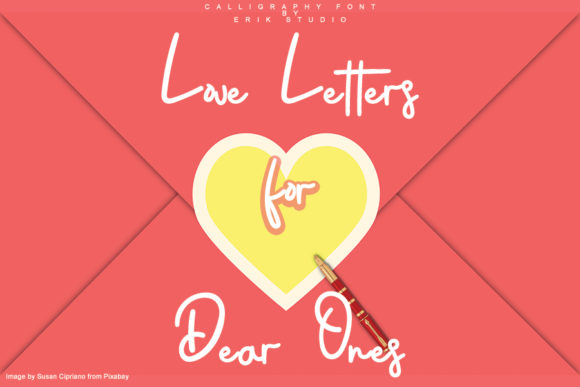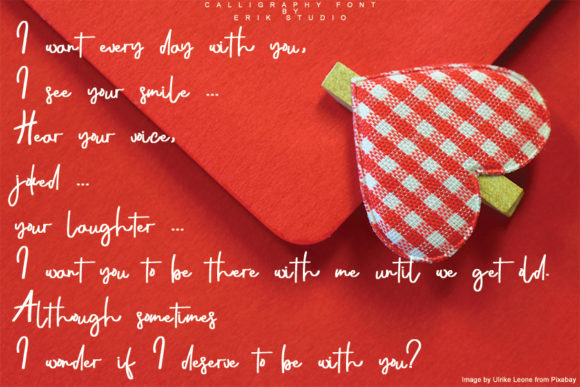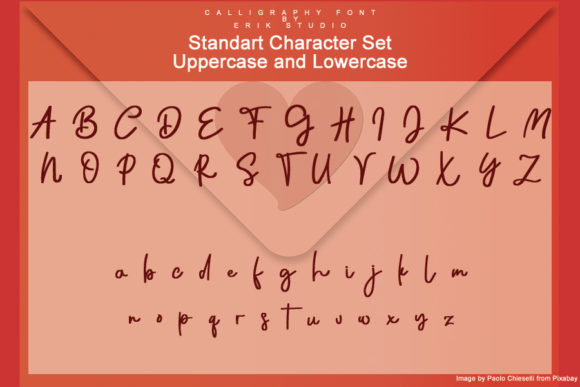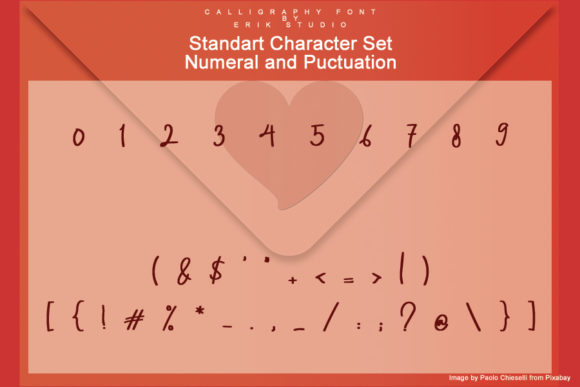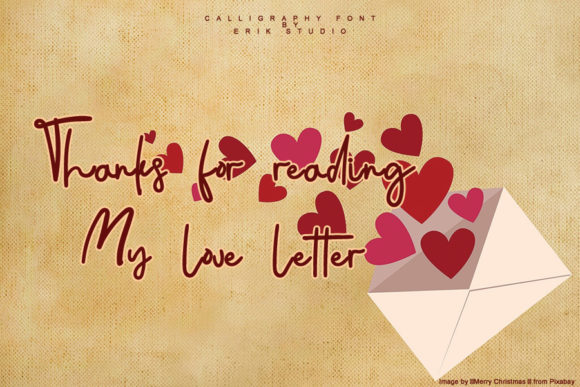
Introduction to Kiss You Font
Kiss You is a simple and cute handwritten font.
It is defined by smooth curves and is perfect for fashion branding or editorial designs Add it confidently to your projects, and you will love the results.
Key Features of Kiss You Font
Why Choose Kiss You Font?